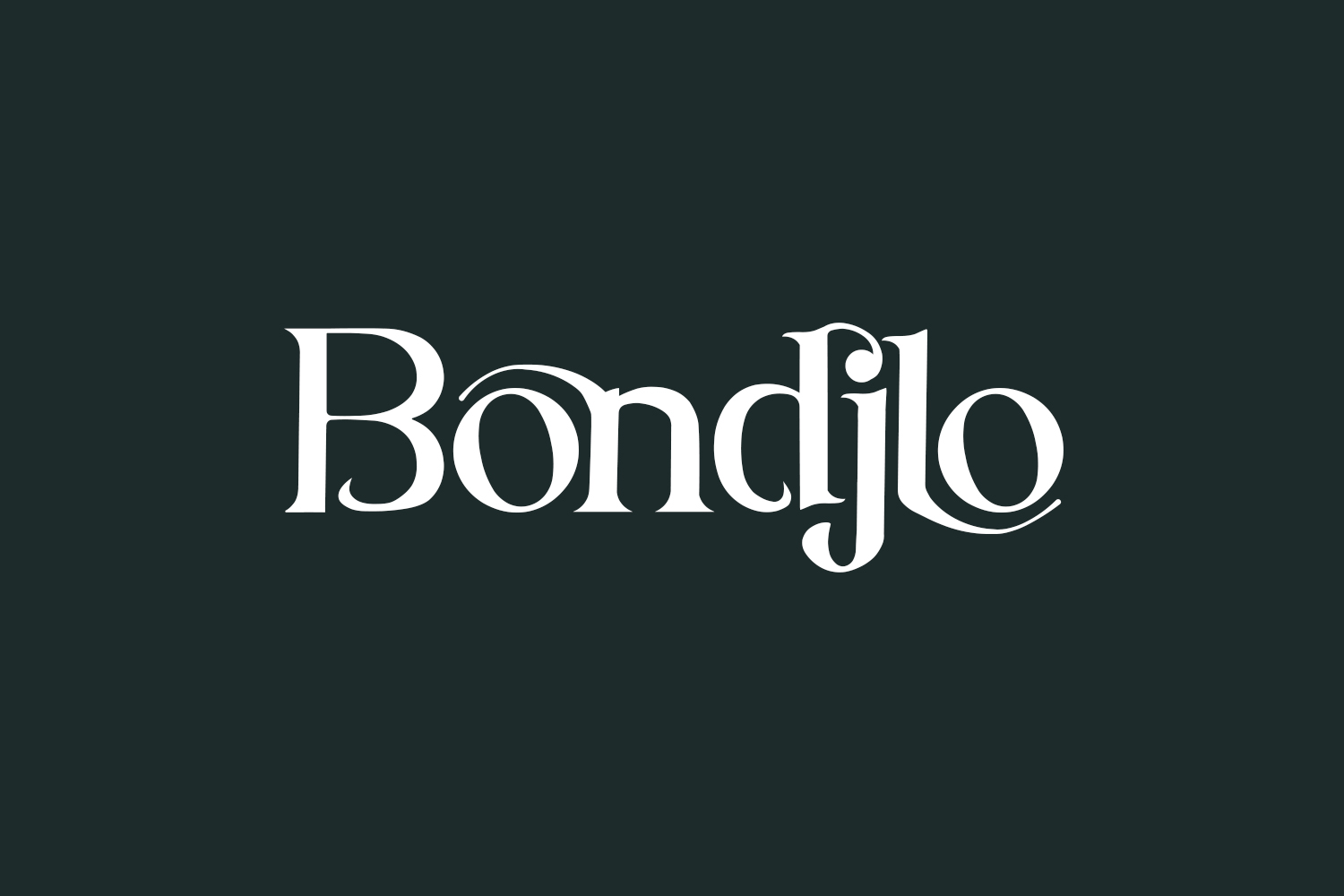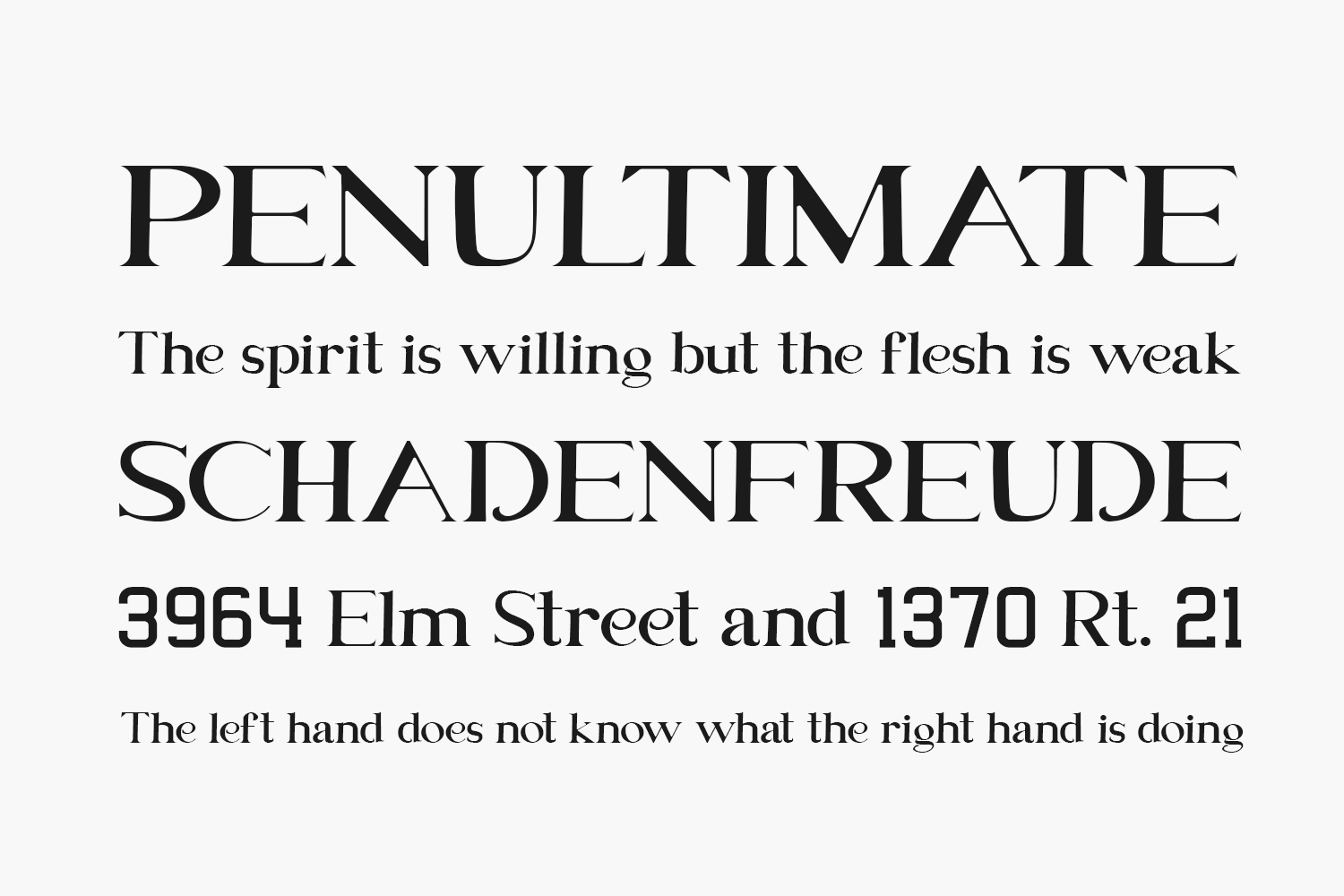
Bondjlo Free Font is an elegant and bold serif font. Fall in love with its incredibly versatile style and use it to create gorgeous wedding invitations, beautiful stationary art, eye-catching social media posts, and much more. Download the font for free if you need it for personal use or purchase the full version for commercial use.
Designed by Muksal Creative